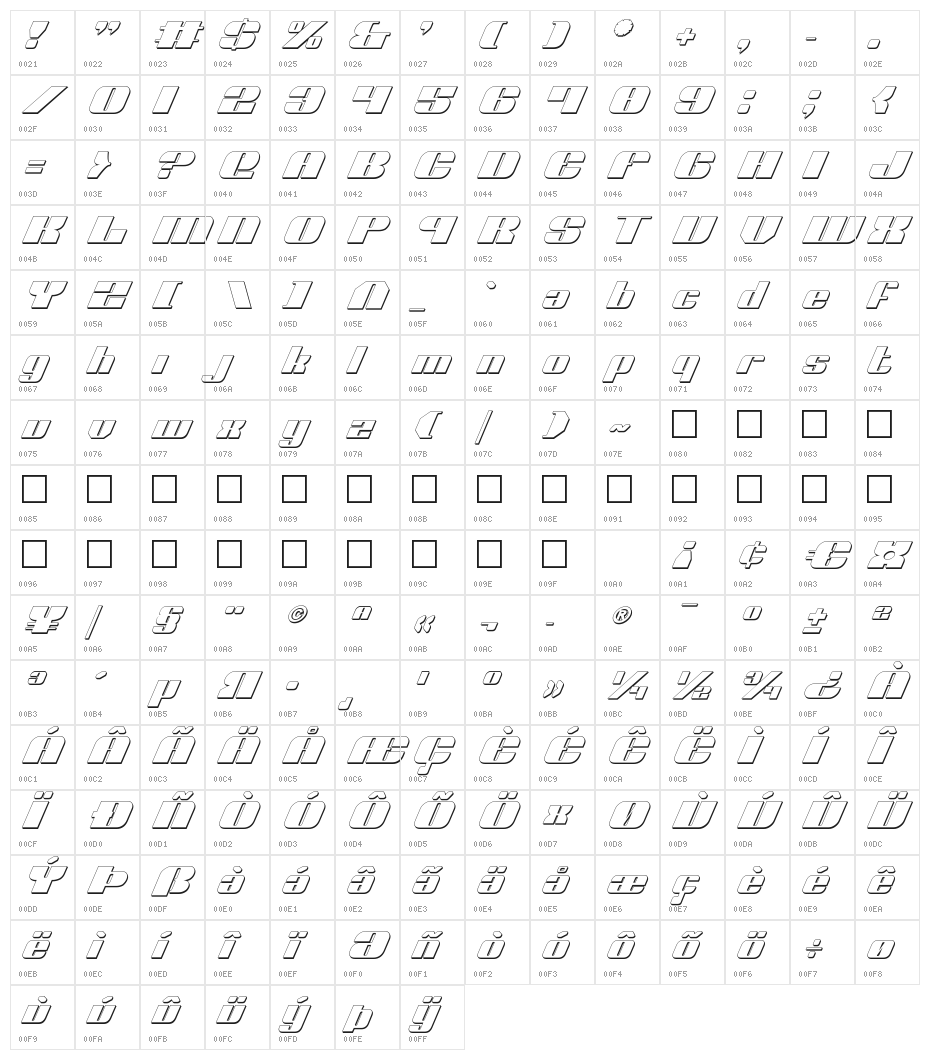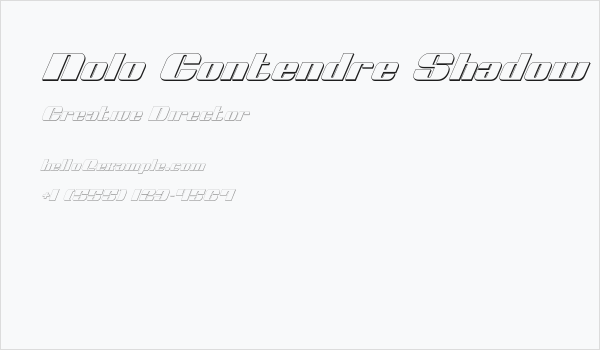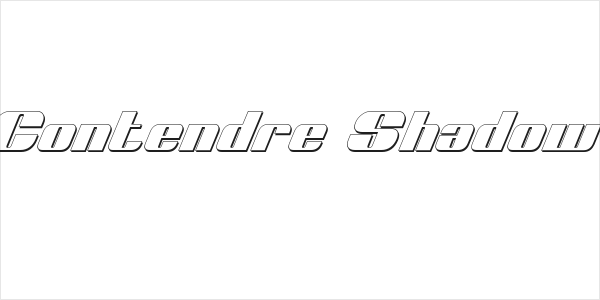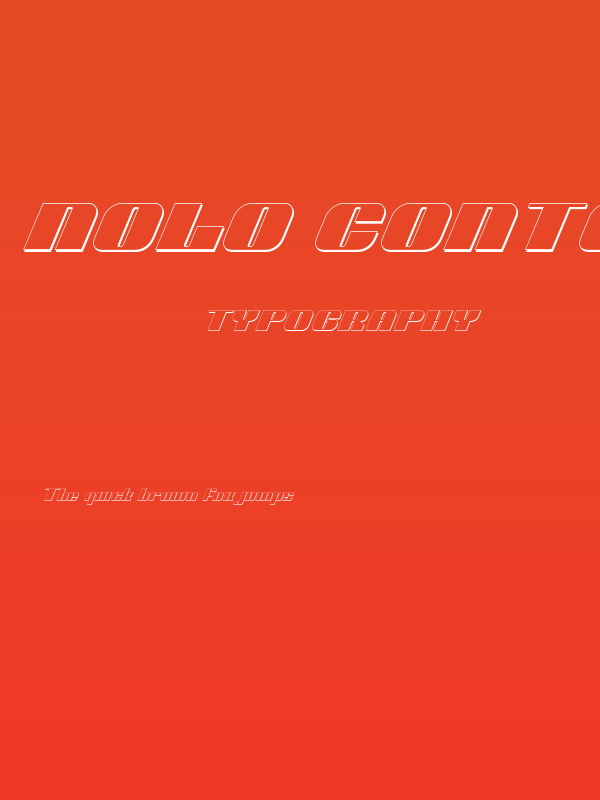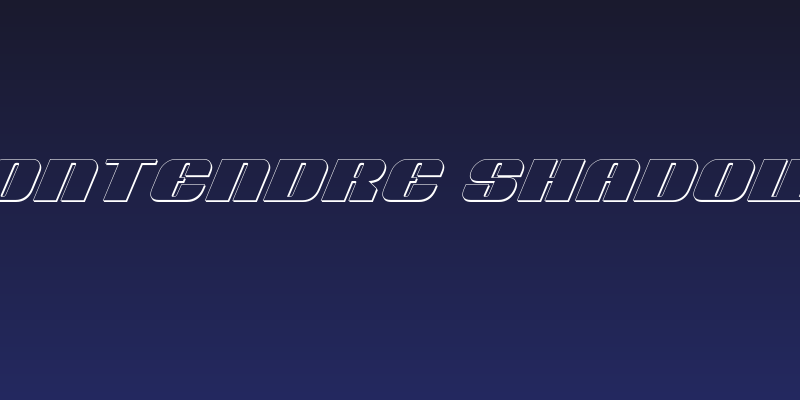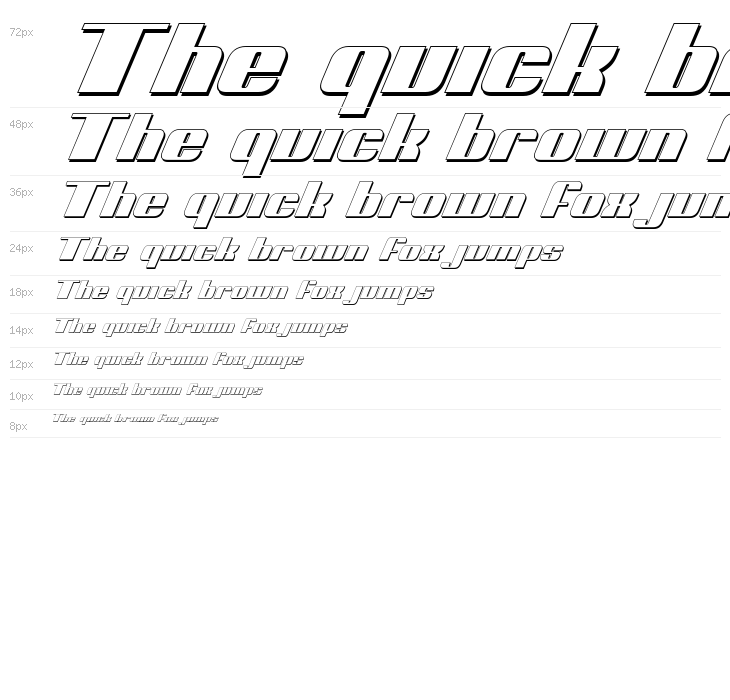
Nolo Contendre Shadow Italic Font
Nolo Contendre Shadow Italic Description
This font features a bold, italicized style with a distinct shadow effect that gives it a three-dimensional appearance. The characters are wide and have a geometric structure, with sharp angles and clean lines. The uppercase and lowercase letters maintain a consistent style, while the numerals and special characters complement the overall design. The shadow effect adds depth, making it suitable for eye-catching designs. The font's modern and dynamic look makes it ideal for projects that require a strong visual impact.
| Proposed Projects | Ideal for posters, logos, headlines, and any design requiring a bold statement. |